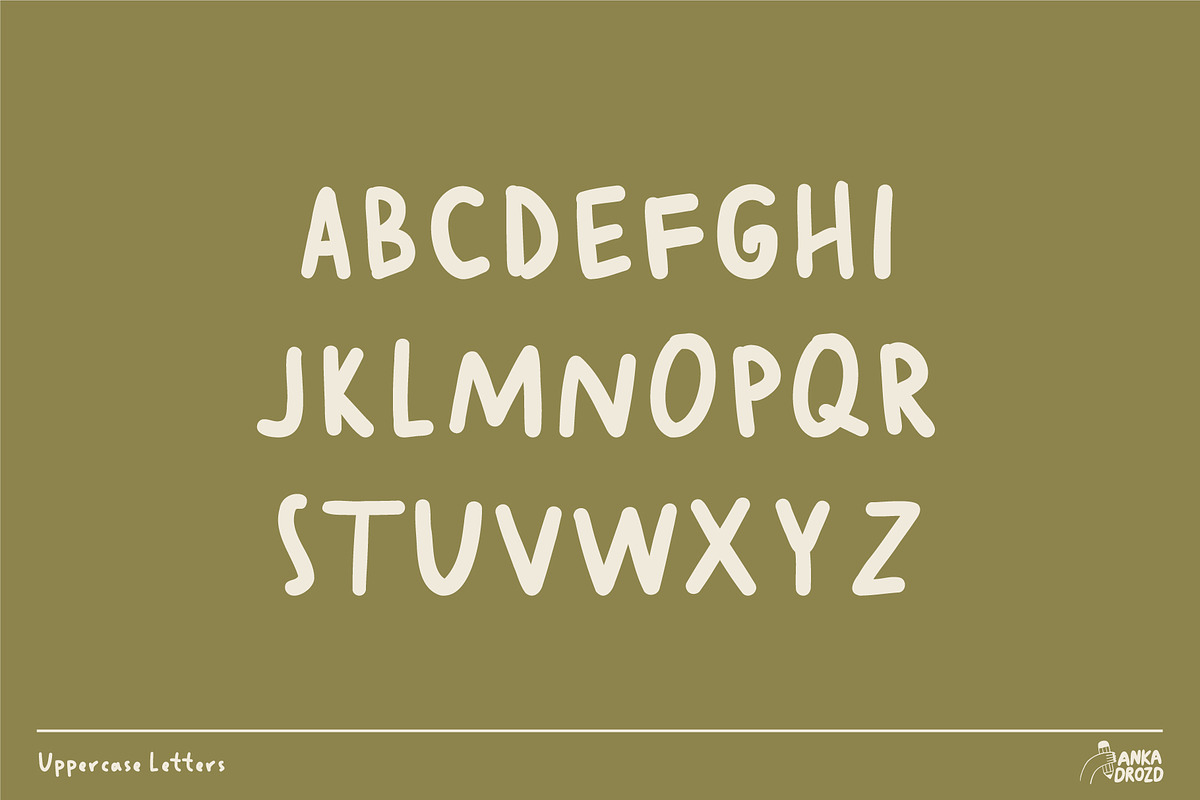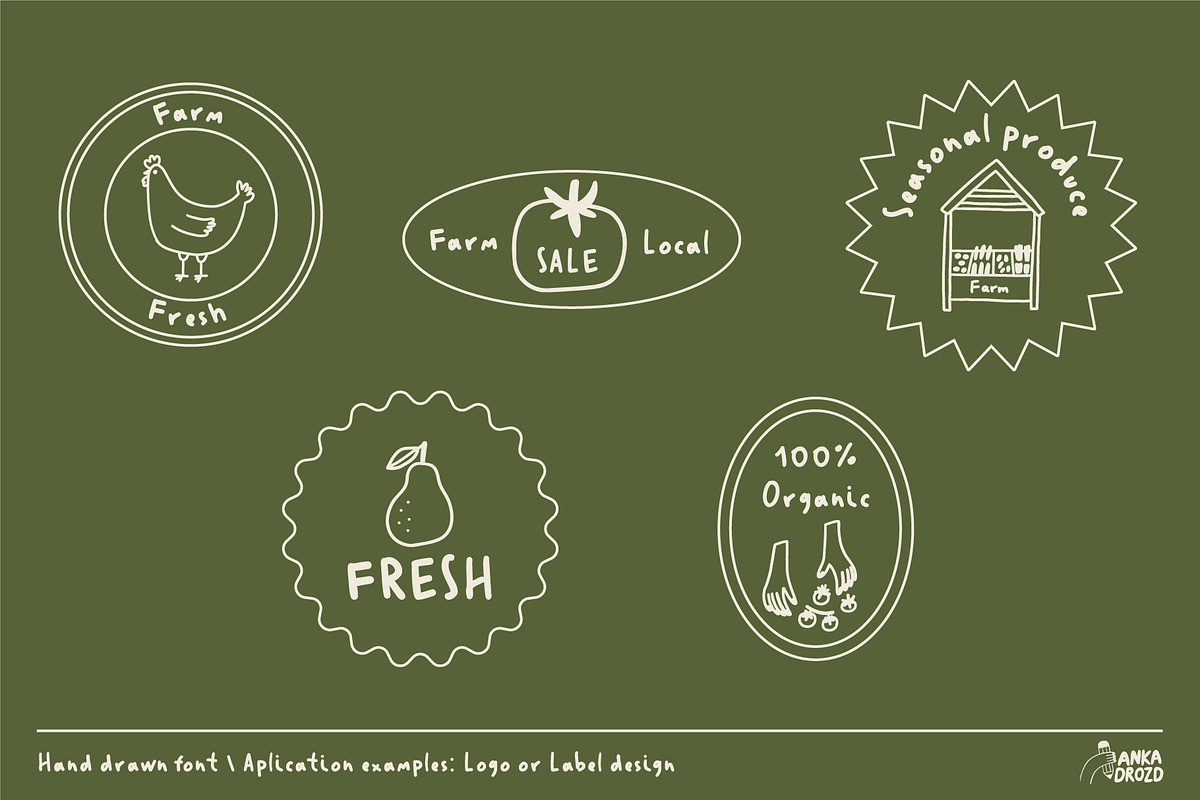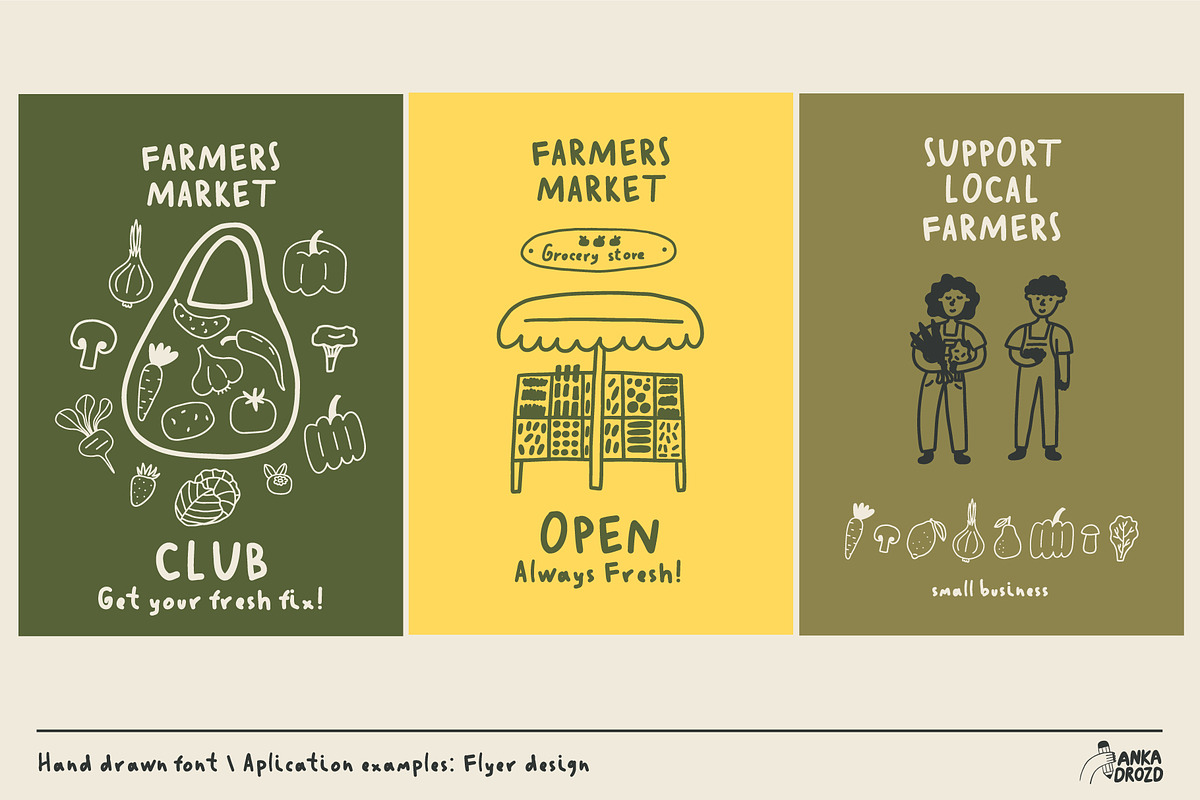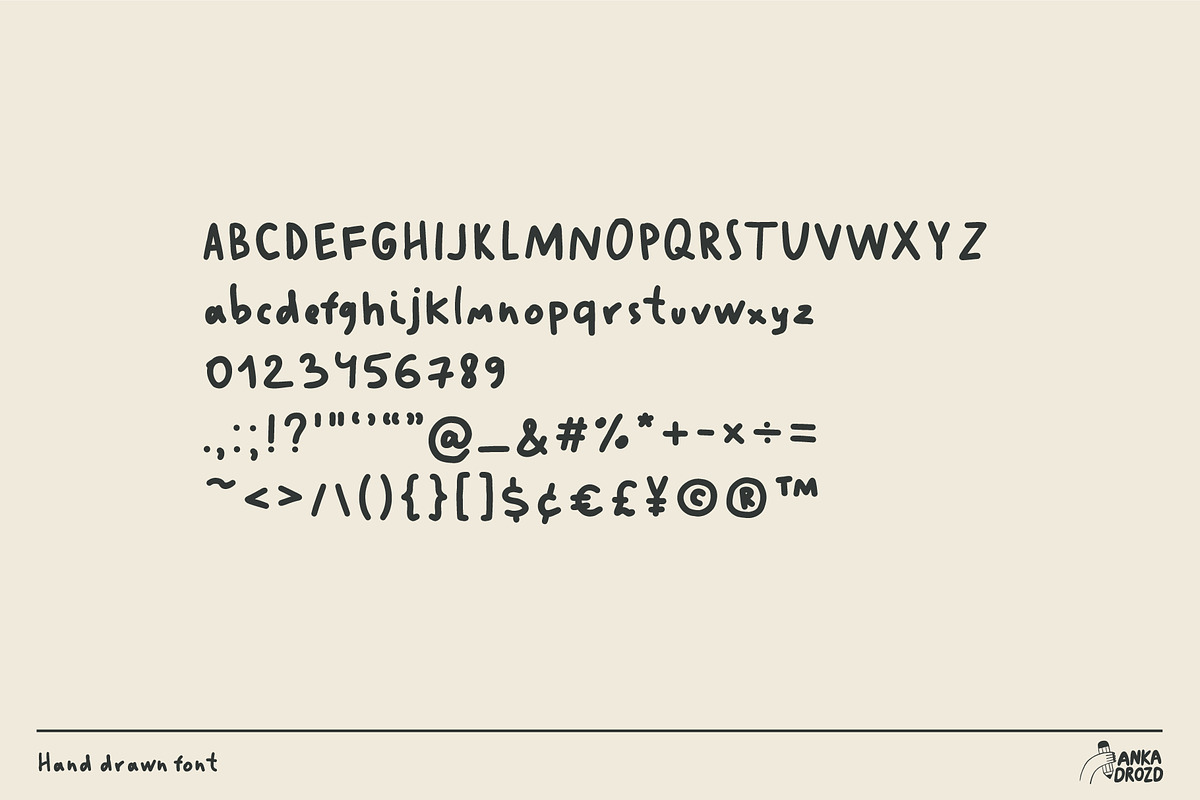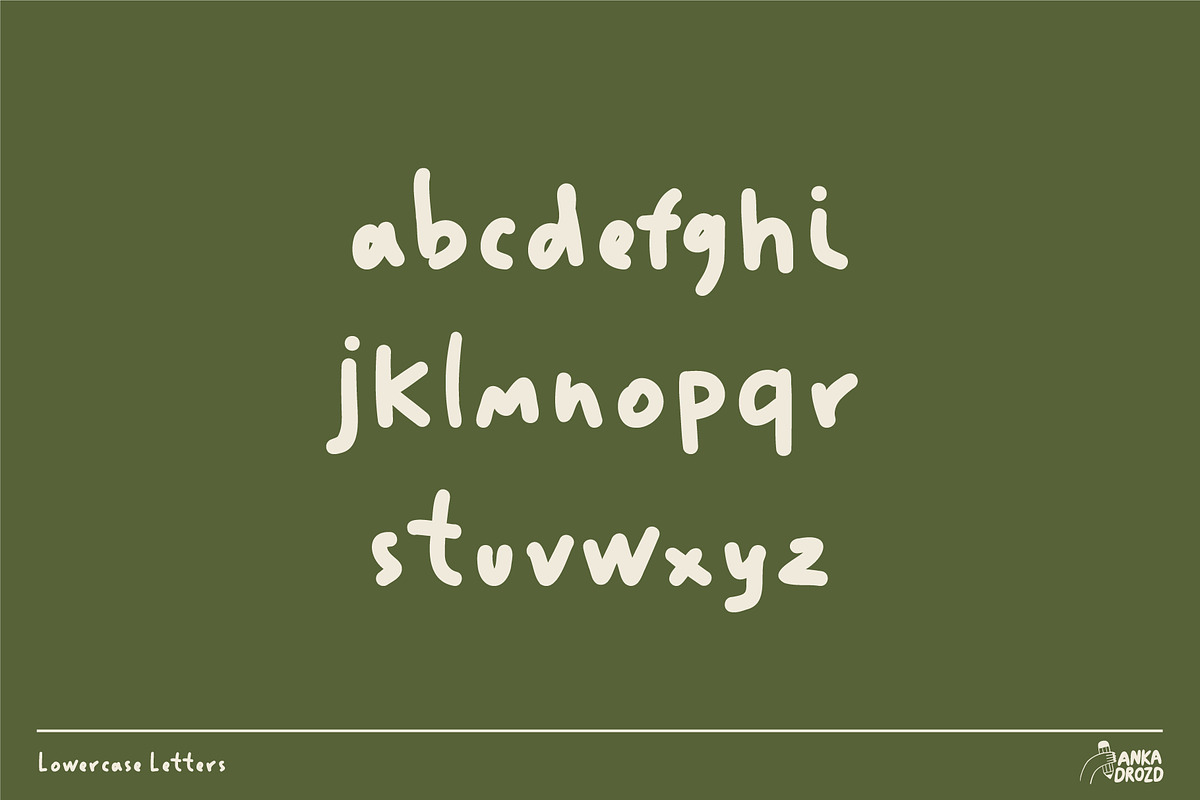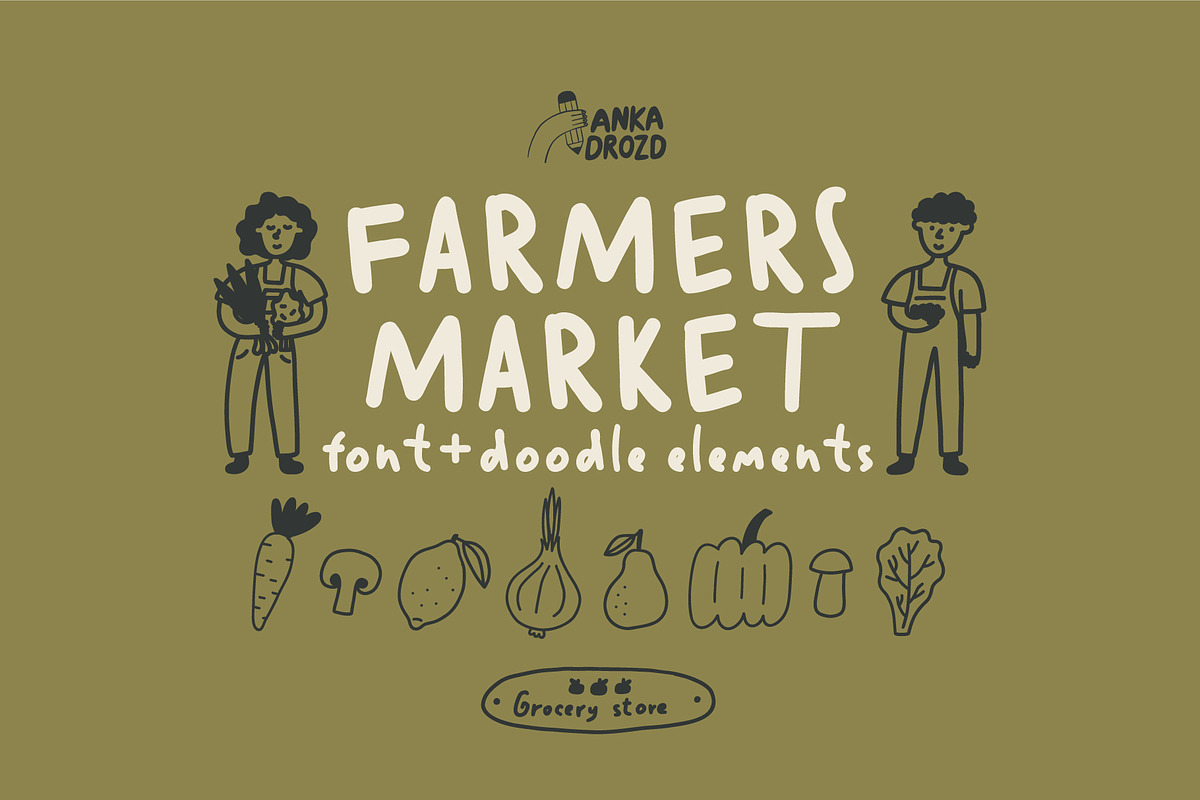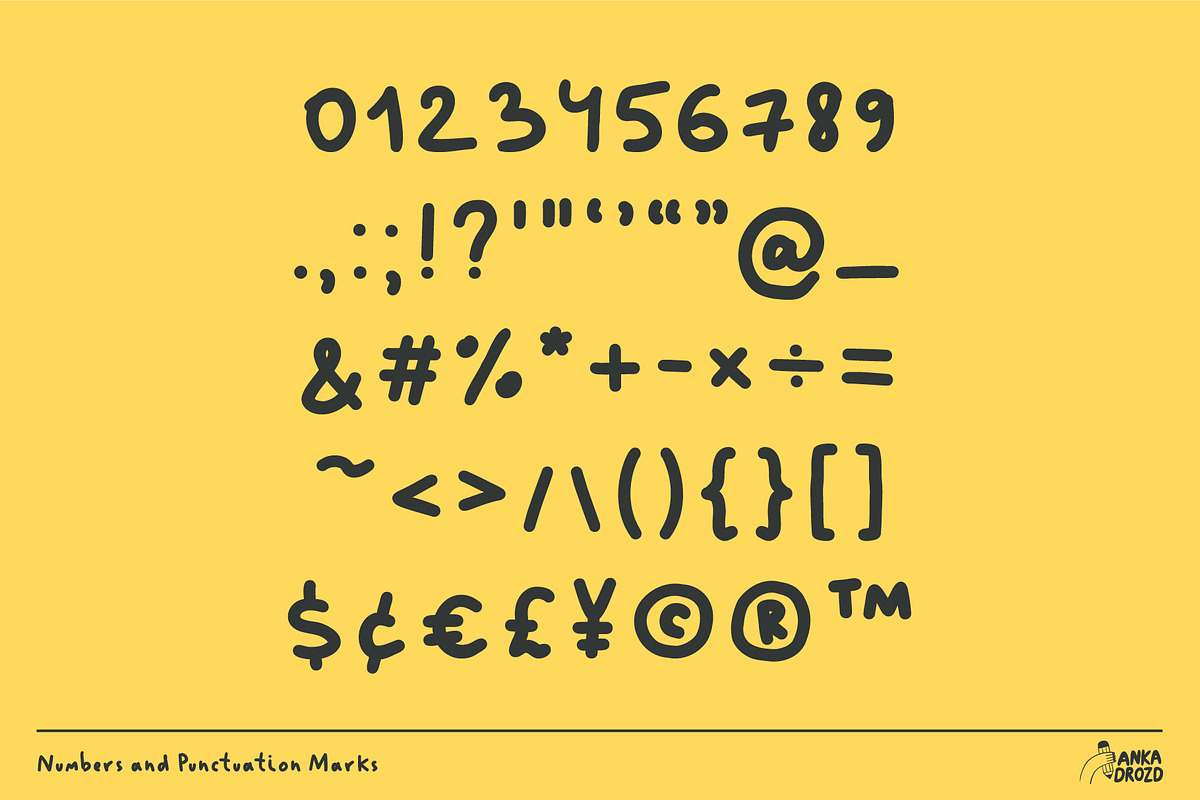
Farmers Market
Farmers Market Doodle Pack. A perfect font and doodle graphics bundle for a local farmers market. This versatile kit is ideal for all your branding needs, from print materials like flyers and invitations to digital assets and logo design.
- Handwritten Font – organic, free-flowing script for a personal touch. OTF format.